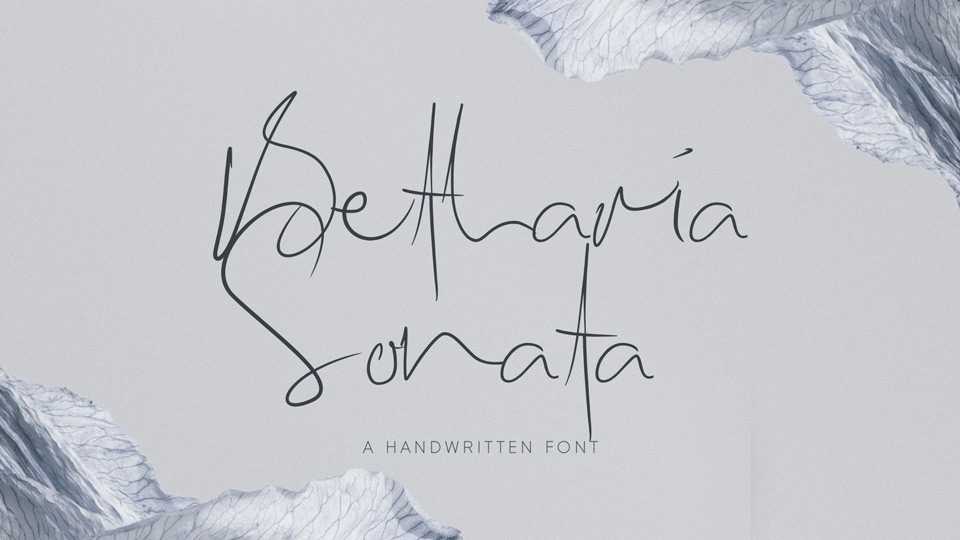
Download Betharia Sonata font, a simple and casual handwritten typeface with a natural and free flowing look. Betharia Sonata is suitable for notes, quotes, cards and other craft projects.